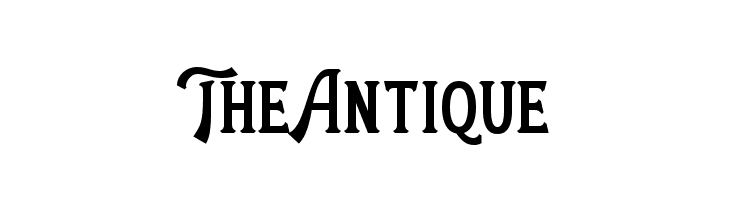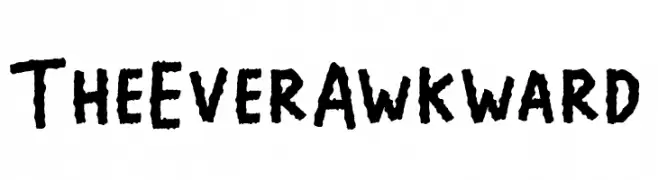
A delicate, flowing script font with elegant cursive letterforms.
A bold, flowing script font with high contrast and elegant curves.
A playful, handwritten cursive font with smooth, flowing strokes.
A bold, decorative font with vintage flair and elegant serifs.
A bold, cursive font with dynamic strokes and artistic flair.
A bold, dynamic script font with fluid, sweeping strokes and modern flair.
An elegant, flowing script font with smooth, cursive strokes and graceful curves.
A graceful and elegant script font with flowing, cursive letterforms.
A flowing, cursive font with elegant loops and swashes, perfect for personal projects.
A bold, rugged handwritten font with irregular, jagged edges.